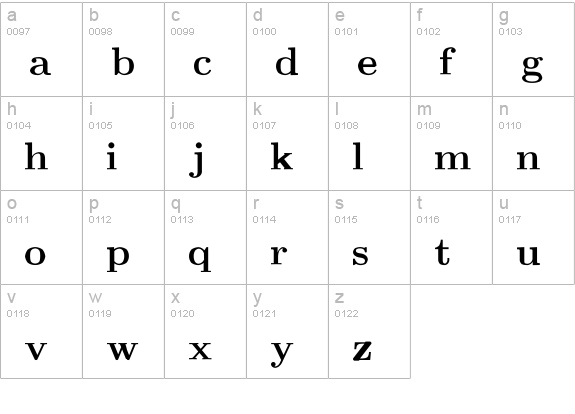
CM_RomanExt Bold Font Details
CM_RomanExt Bold is a strong, high-contrast variant in the CM_RomanExt typeface family \xE2\x80\x94 well suited to headlines, attention-grabbing titles, and strong calls-to-action.
CM_RomanExt Bold is a striking and versatile typeface that exudes confidence and elegance. Its bold weight and distinctive Roman-inspired design make it perfect for creating impactful headings and titles. This font seamlessly combines classic elements with a modern twist, making it suitable for a wide range of design projects. What's even better is that CM_RomanExt Bold is available for free download at FontsMarket.com! This means you can easily access this eye-catching font without any cost, allowing you to enhance your designs with a touch of sophistication and style. Don't miss out on the opportunity to add this beautiful typeface to your font collection today!